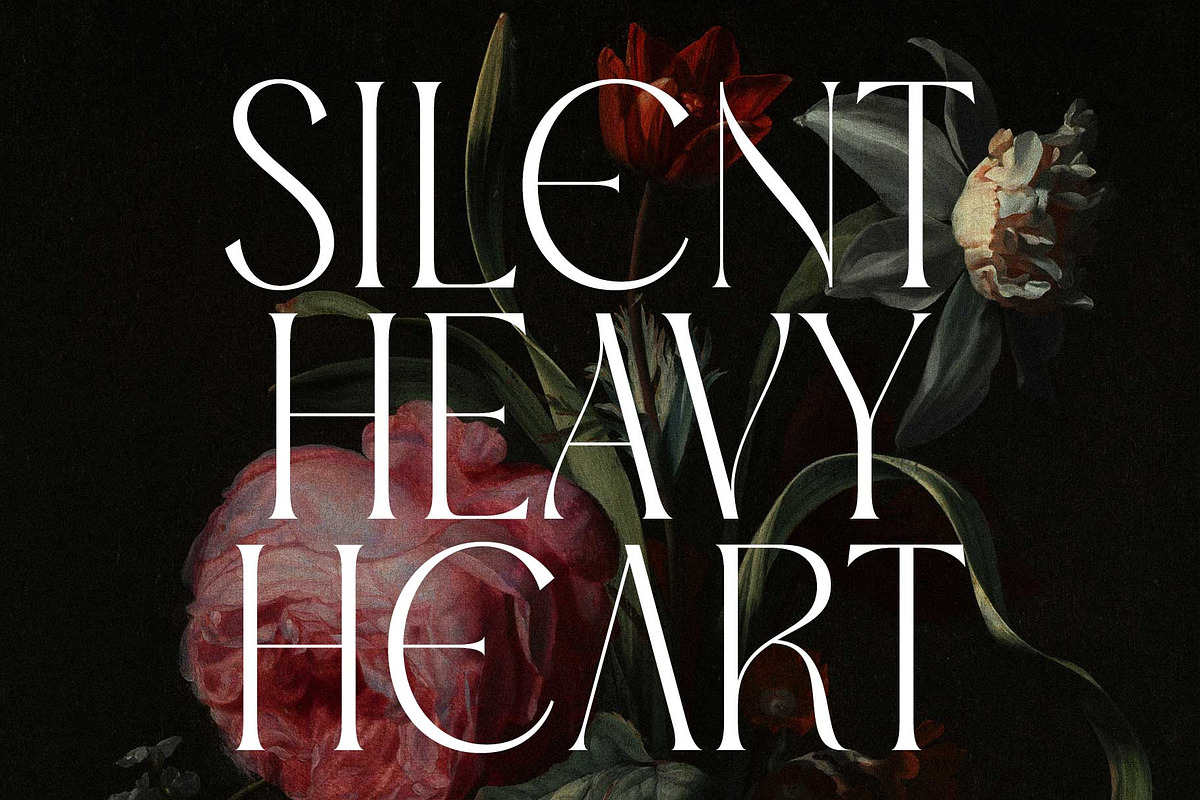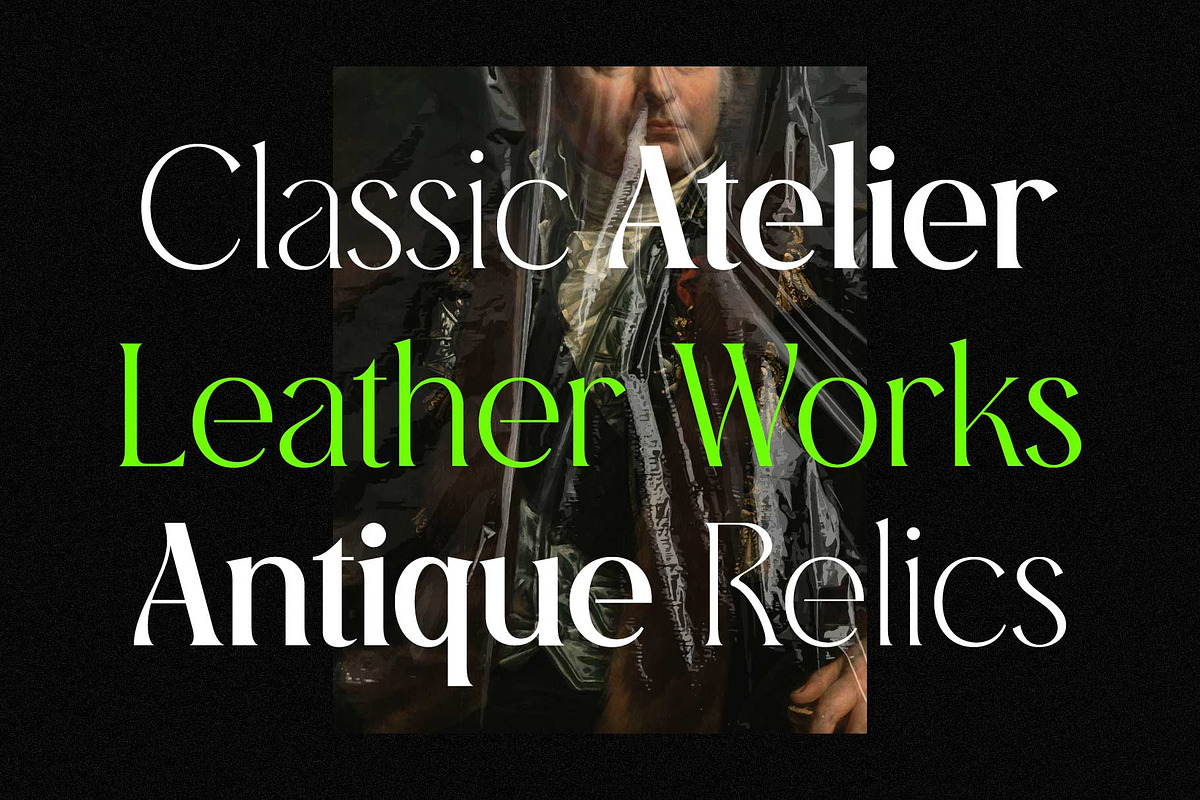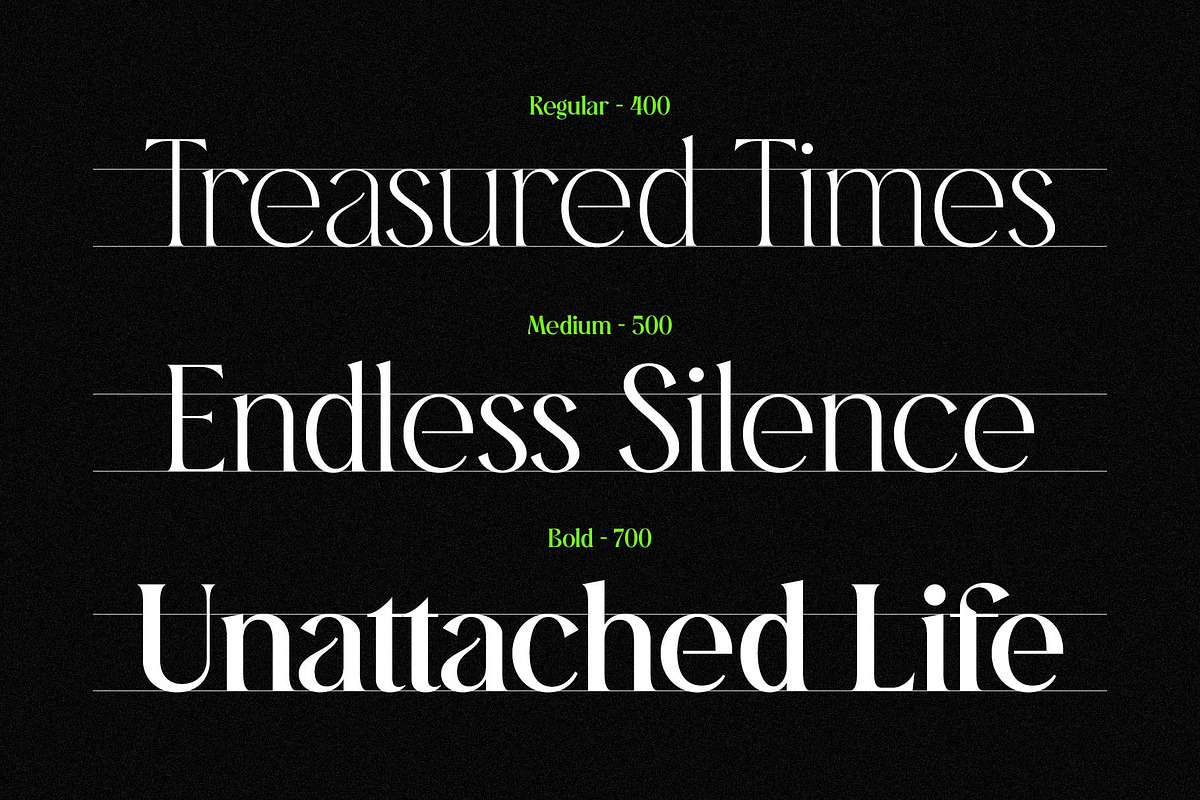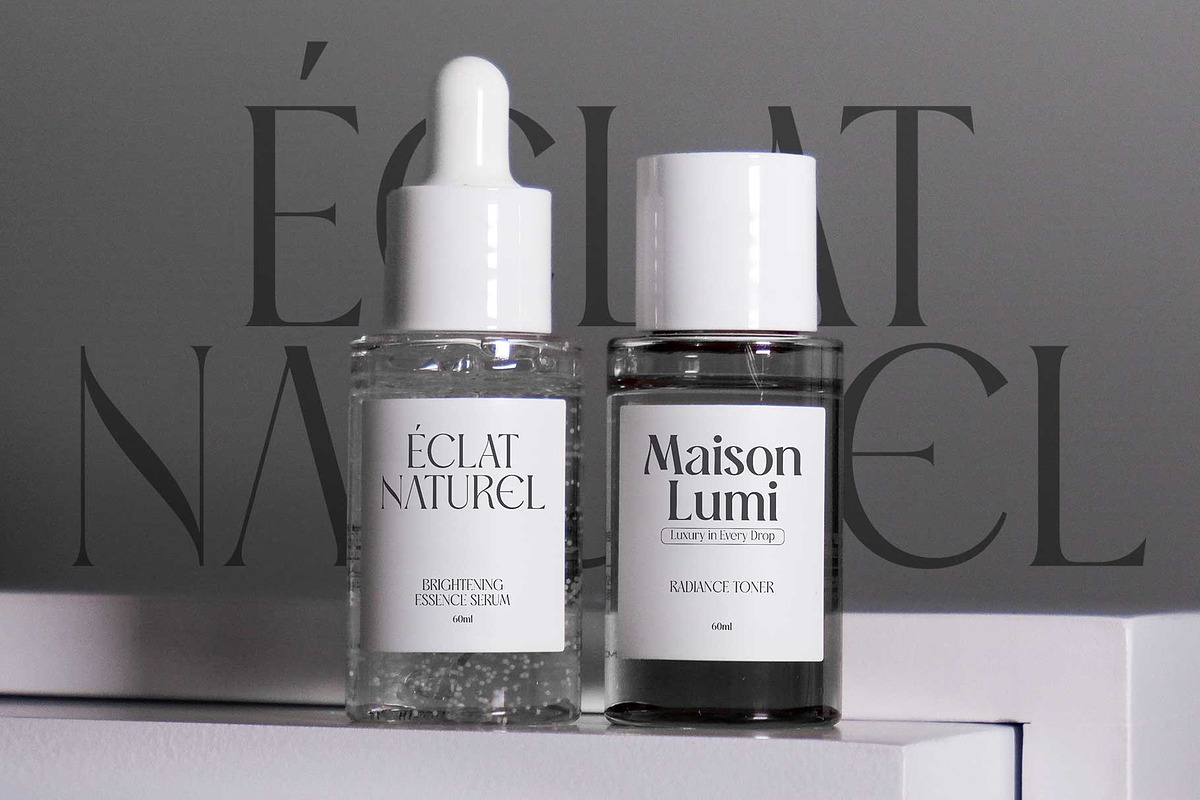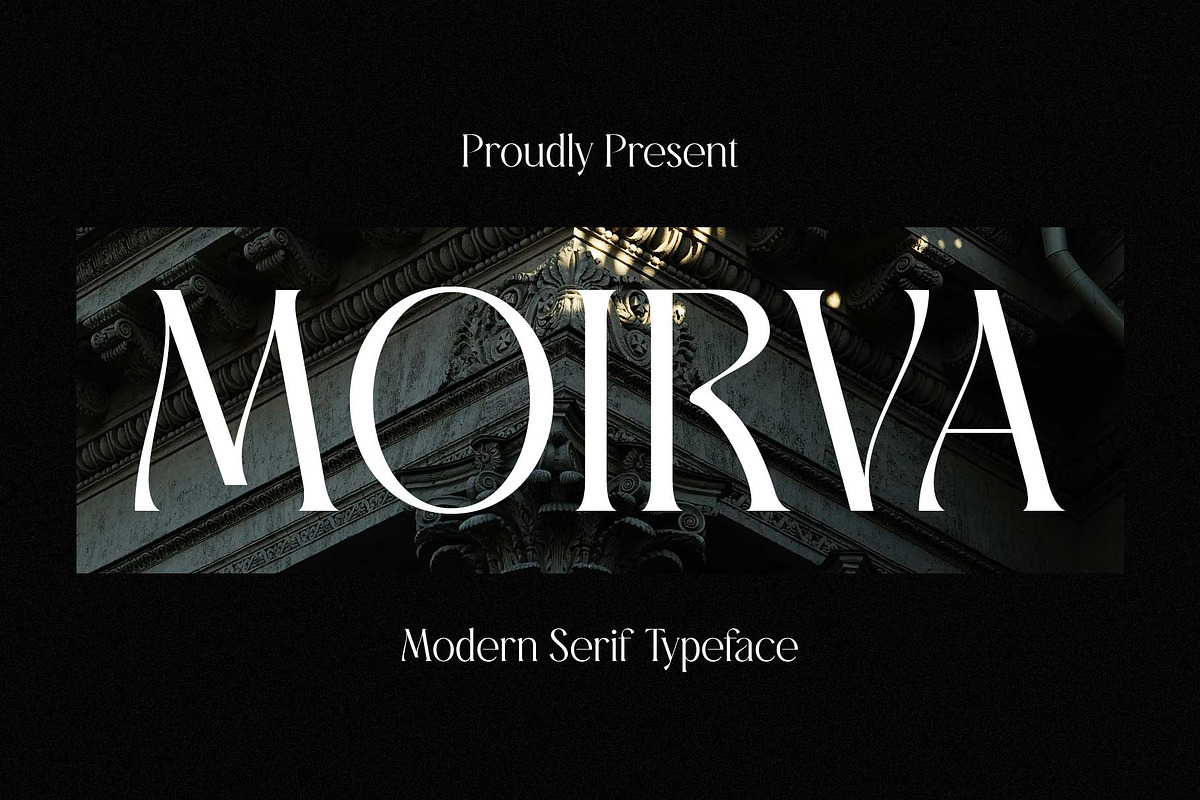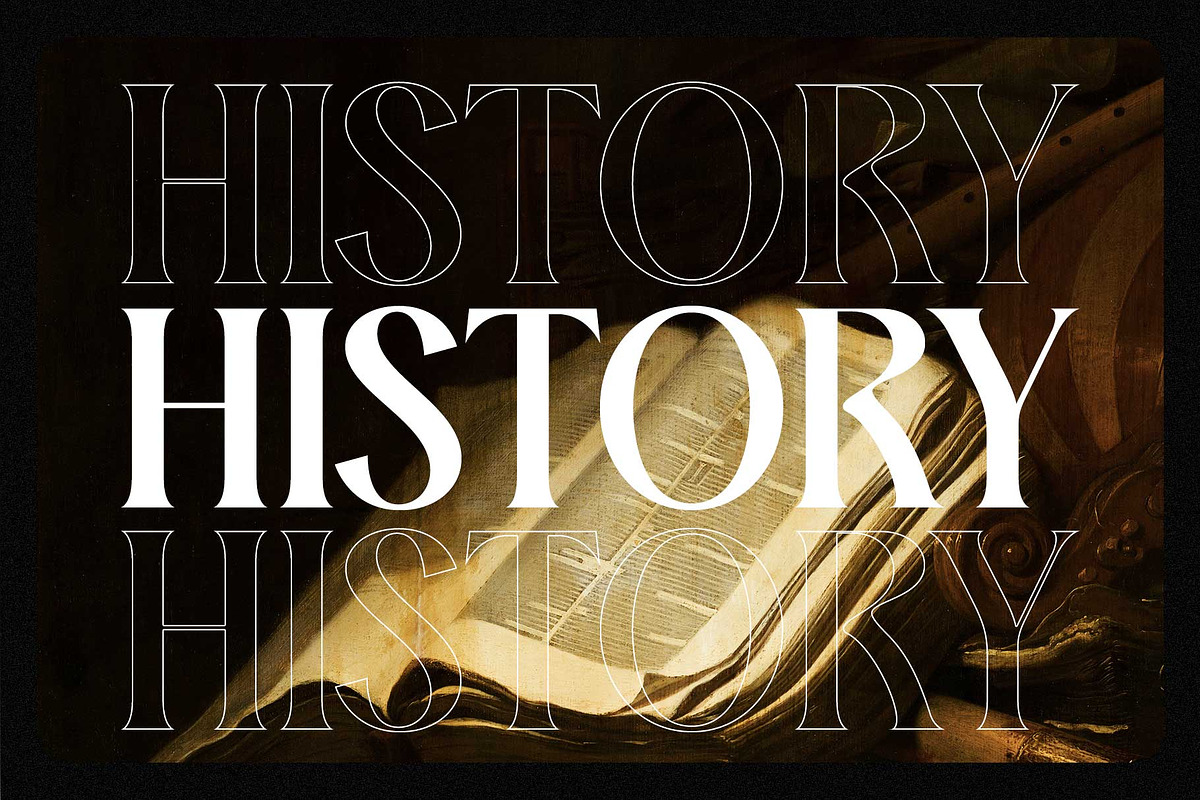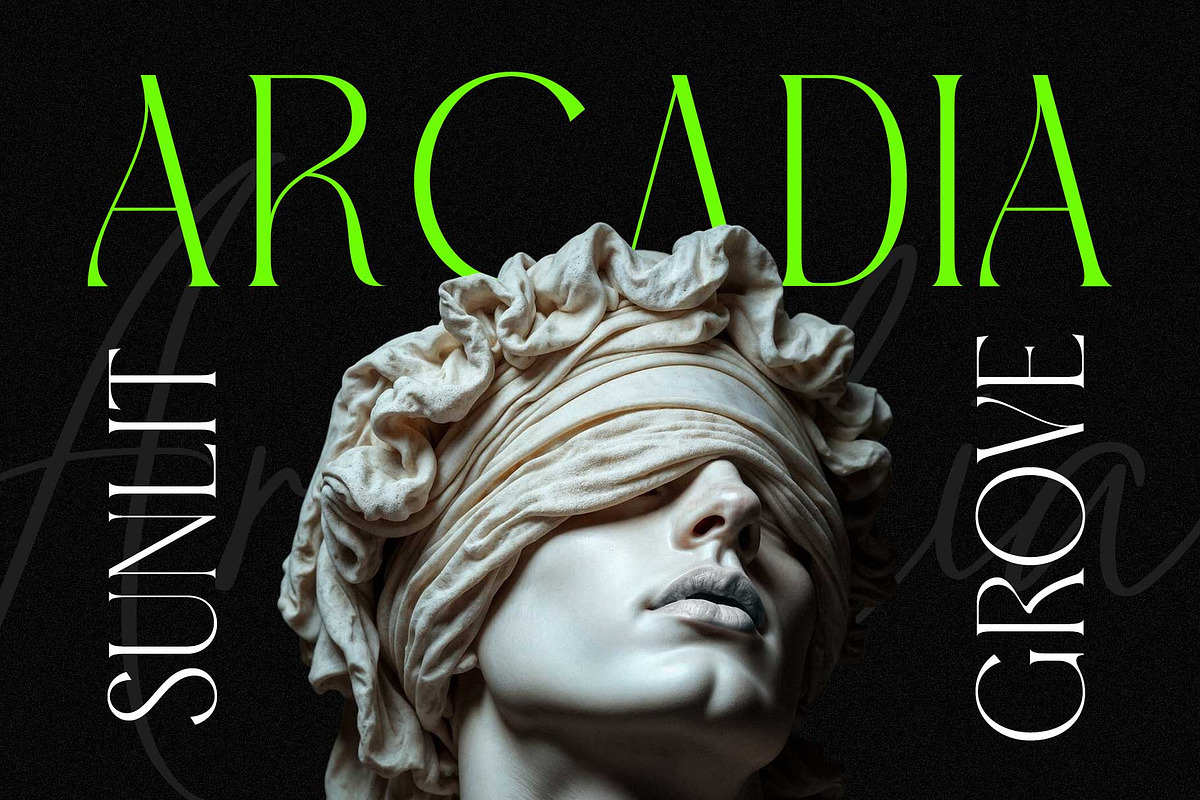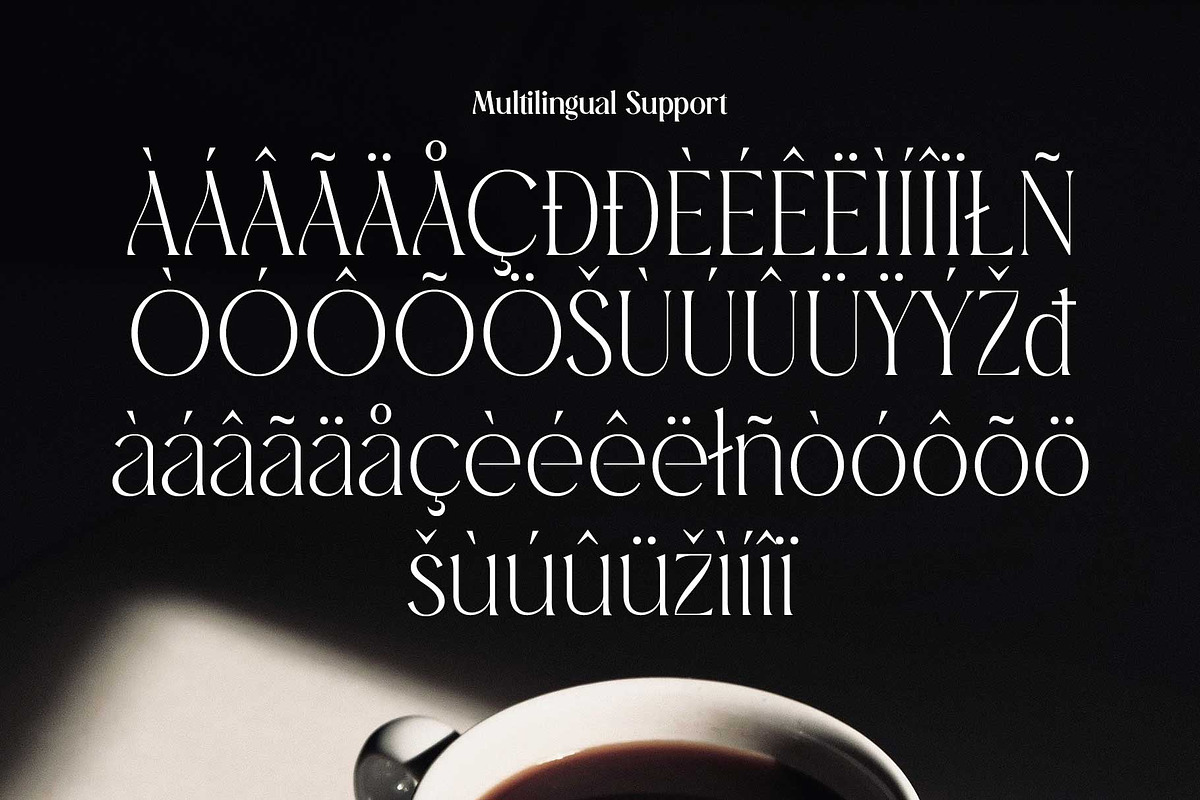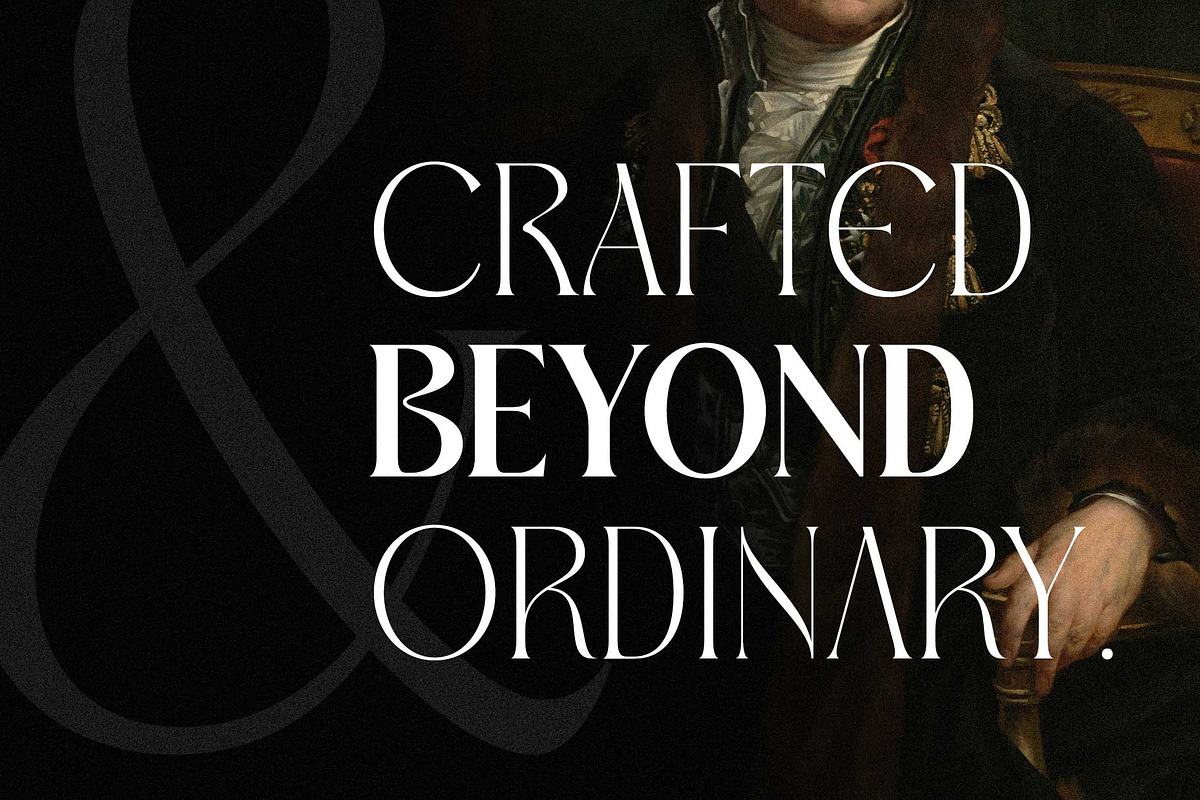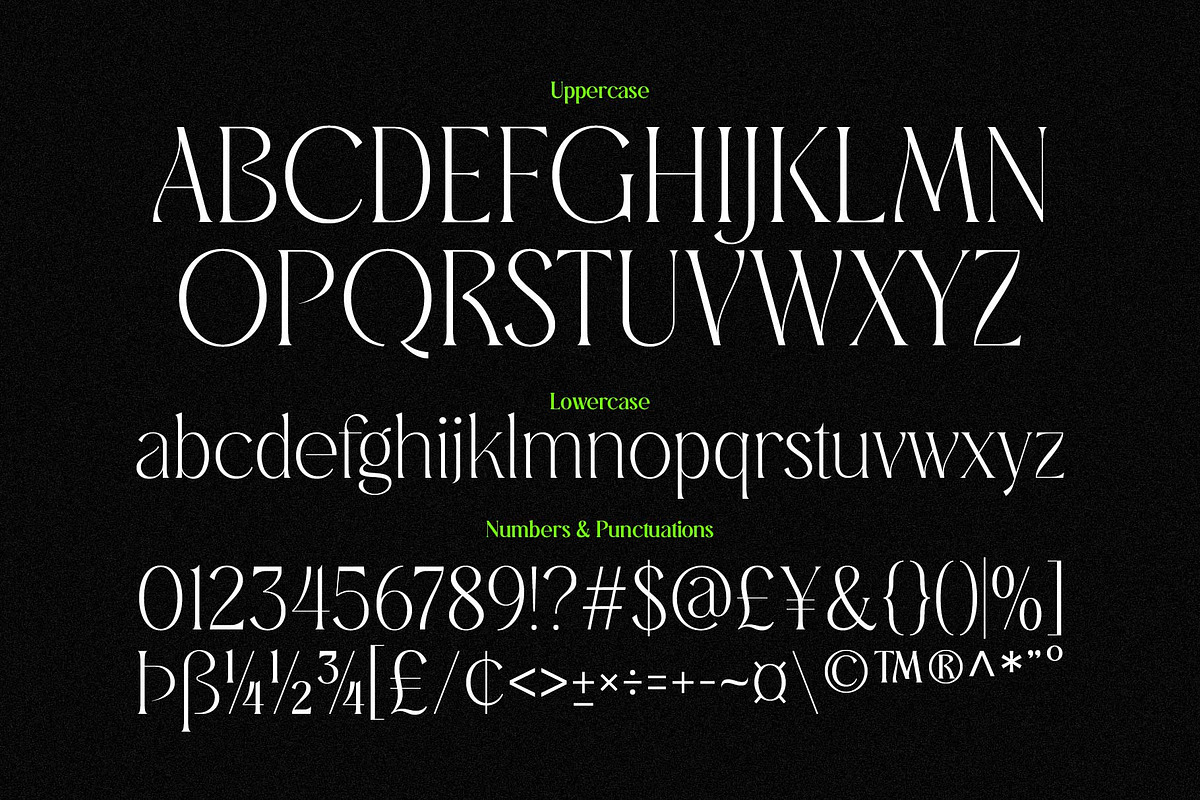
Moirva - Classy Serif
Moirva is a casual serif with elegant proportions, a relaxed personality, and a clean minimalist feel. Its refined details and soft curves create a timeless look that feels sophisticated without being overly formal.
Featuring a thoughtfully crafted set of alternates and ligatures, Moirva gives you the flexibility to create expressive headlines and distinctive logotypes. Available in Regular, Medium, and Bold, it adapts effortlessly to a wide range of creative projects.
From luxury branding and editorial layouts to premium packaging and modern visual identities, Moirva brings clarity, character, and quiet elegance to every design.